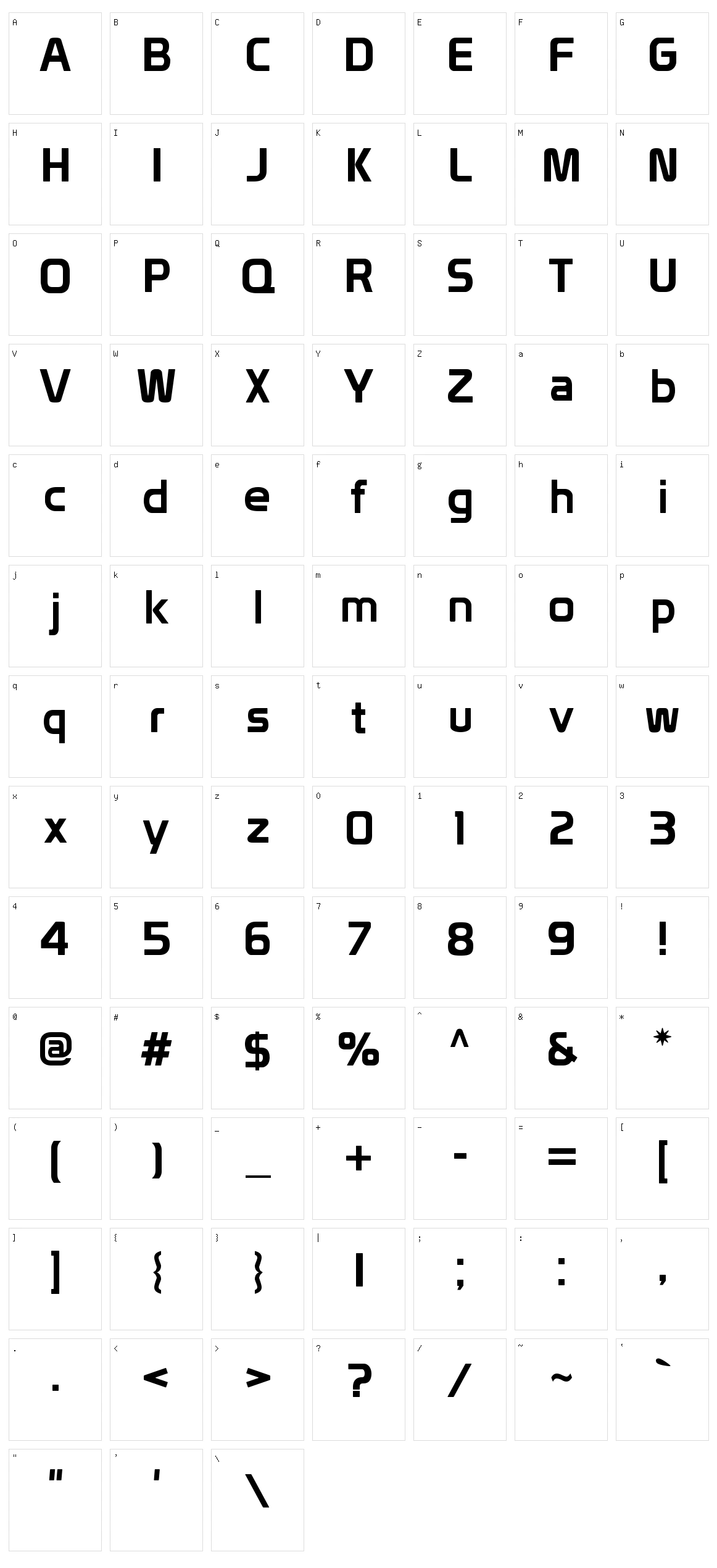
PROTOTYPE is an original font based on the signage typeface used at Walt Disney World's Epcot theme park. It can also be seen on the monorails and in Disneyland's Tomorrowland.
v2.0 includes the full character set -- all capitals and lowercase, punctuation, numbers, symbols, and international characters. All of the "missing" characters have been redrawn to emulate the "Prototype" look as closely as possible.